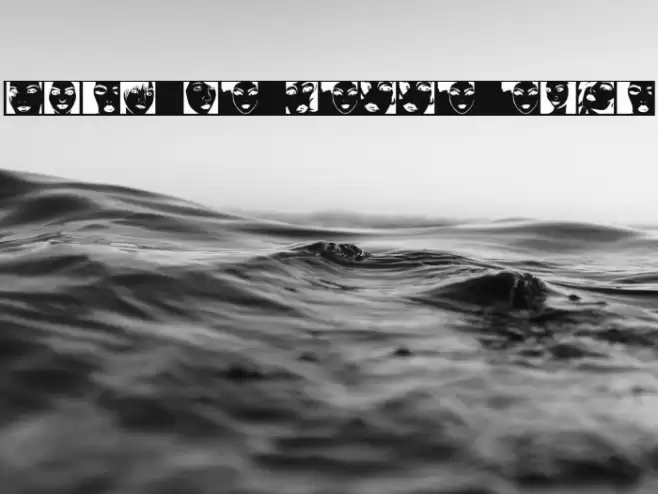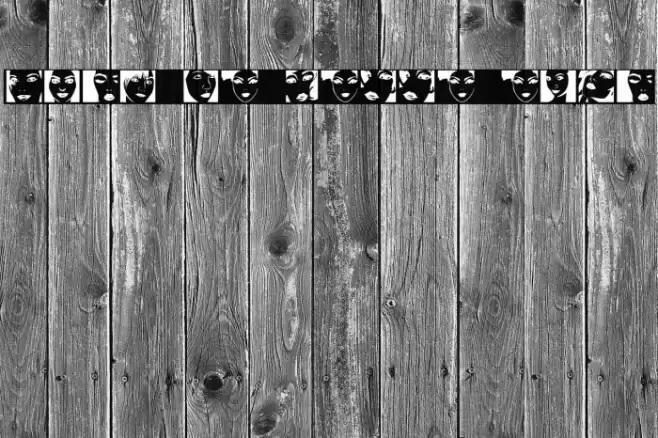
Portraits de Femmes Regular Font
Portraits de Femmes Regular Description
This is not a traditional font but rather a collection of stylized portraits of women. Each character is represented by a unique face, showcasing a variety of expressions and styles. The design is highly decorative, focusing on artistic representation rather than legibility. The portraits are detailed and capture different facial features and hairstyles, making each character distinct. This set is more suitable for artistic projects rather than textual content, as it emphasizes visual appeal over readability.
A decorative set of stylized female portraits representing each character from Dingbats fonts.
- Proposed Projects: Ideal for artistic projects, graphic design, posters, and creative displays where visual impact is prioritized over text readability.
- Use Case: Artistic displays, graphic design, creative projects.